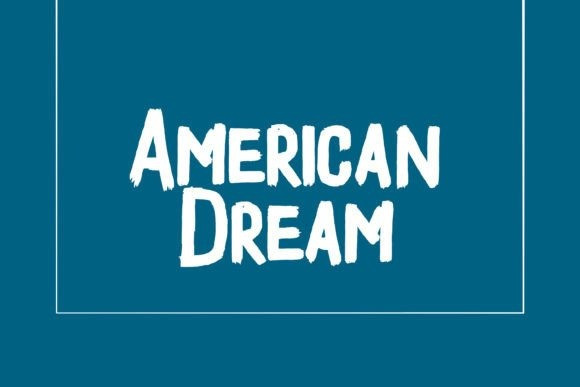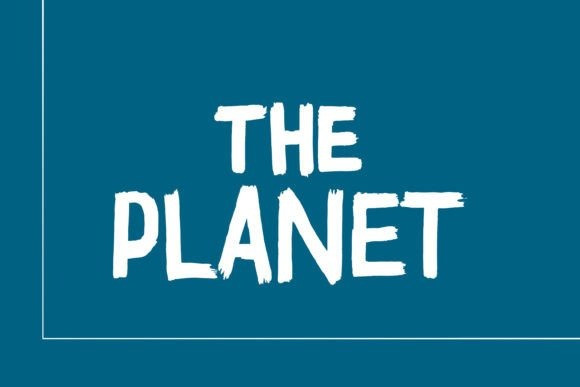
The Planet Font
The Planet Font is a one-stroke brush font that stands out from the rough version. The unique texture makes this font look great for retro and vintage themes.